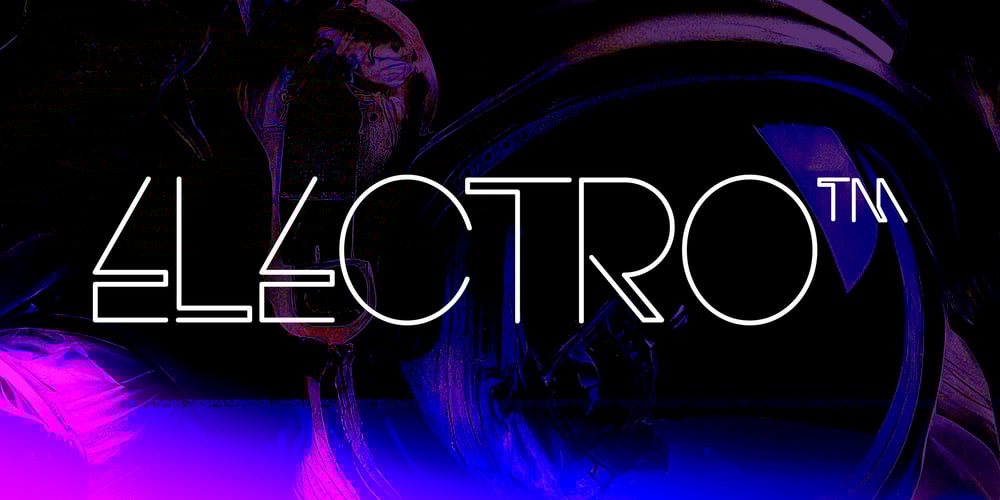
Electro Font Family was designed by Alex Haigh and published by HyperFluro. Electro contains 1 styles and family package options. Electro’s neon light inspiration gives it an interesting way to draw letters. Every part of this font could be part of a circuit board, with no lines doubling over or tracing the same path. The font stands out by occasionally taking shortcuts, such as in the E and S characters, which make up for many characters having to choose a longer route. Altogether, this constant state of quick then slow creates an unpredictability as of a surge of electricity or lightning bolt. Electro supports a number of languages with glyphs that keep up the electronic theme, and is perfect for party culture or futuristic science fiction. Like electric, this is the perfect font for shocking your audience.